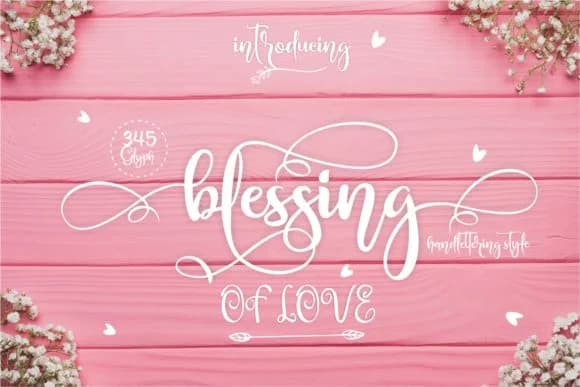
Blessing strikes a balance between refined elegance and personal warmth that draws people in immediately. This script font by creativework69 brings a sophisticated hand-written quality that feels intimate and genuine without sacrificing polish or professional presence. It's the kind of typeface that makes a layout feel carefully considered rather than hastily thrown together.
Flowing with the confidence of a designer's own pen, the letterforms make each character feel genuinely handcrafted rather than a sterile digital simulation. You'll reach for it when designing luxury wedding invitations and announcement suites, high-end beauty and cosmetics packaging, personalized stationery collections, and artisanal food or beverage labels where the brand voice needs that human, handmade quality. Those curves carry real weight and deliberation, commanding attention without ever feeling loud or overdone. If embossed on linen cardstock for formal occasions or featured as part of a luxury brand identity system, the font speaks volumes to audiences that notice every detail.
- Elegant, Flowing
Blessing Font by creativework69 Font is a script font that shines as a display or heading face. Pair it with a clean sans-serif or serif font for body text — the contrast creates a clear hierarchy while the two styles stay balanced and easy to read.